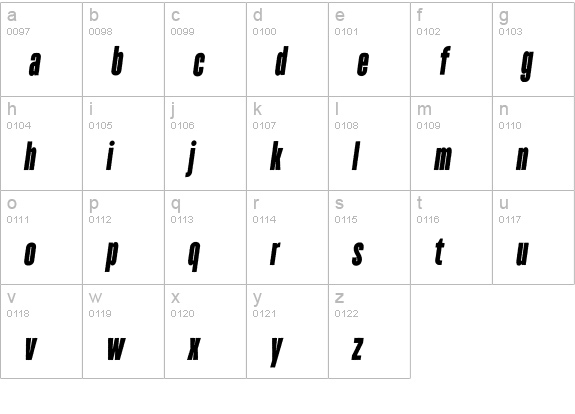
TT Bluescreens Rough Black Ita Font Details
TT Bluescreens Rough Black Ita is a maximum-weight, dramatic variant in the TT typeface family \xE2\x80\x94 well suited to maximum-impact headlines, posters, and packaging.
TT Bluescreens Rough Black Ita font is a bold and dynamic typeface that exudes a sense of edgy modernity. Its rough and rugged design gives off a rebellious vibe, perfect for projects that require a touch of attitude. The unique italicized characters add a sense of movement and energy to any text, making it stand out from the crowd. Best of all, TT Bluescreens Rough Black Ita font is available for free download at FontsMarket.com. This means you can use this eye-catching font in your projects without any cost, making it a valuable addition to your design toolkit. Whether you're working on a poster, website, or branding project, this font is sure to make a bold statement and leave a lasting impression. Don't miss out on the opportunity to elevate your designs with TT Bluescreens Rough Black Ita font - download it for free today!